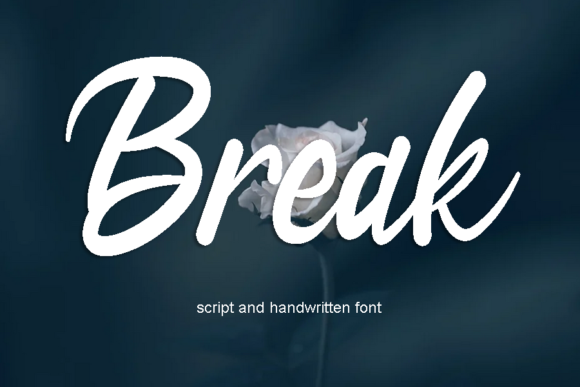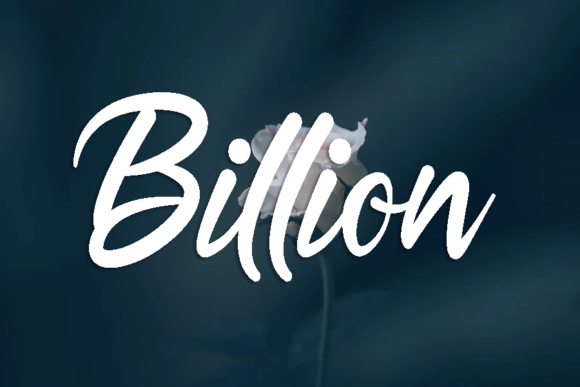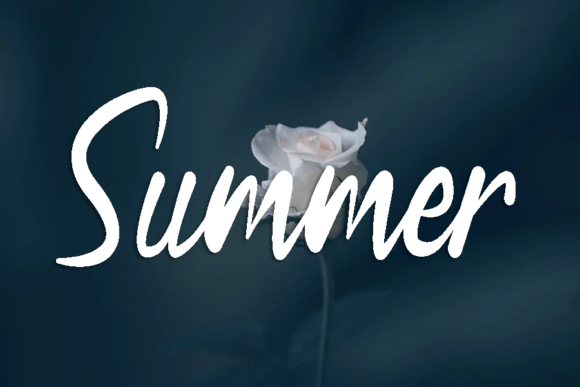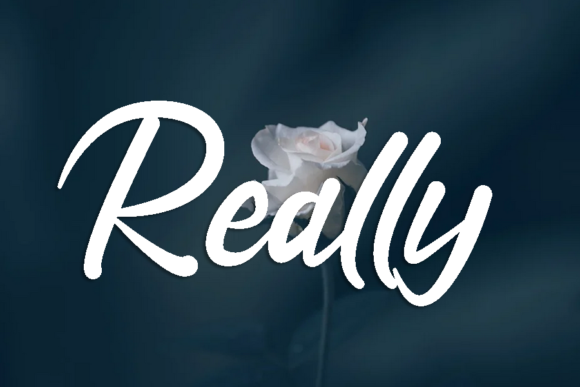
About Break Font
Break is a sophisticated and elegant script font that adds a touch of luxury and charm to a variety of design projects. With its stylish and delicate appearance, Break is well-suited for a wide range of creative endeavors, making it an excellent choice for logos, branding projects, labels, photography, watermarks, and more.
One of Break’s standout features is its versatility. Whether you’re working on a high-end fashion brand, a boutique bakery, a wedding invitation, or a lifestyle blog, this font effortlessly adapts to the style and theme of your project. Its graceful letterforms and flowing strokes add a sense of refinement and sophistication, making it ideal for projects that require a touch of elegance.
When applied to logos and branding, Break makes a strong statement. Its distinctive script style creates a memorable and visually appealing logo that captures the essence of your brand. Whether you’re aiming for a classic, timeless look or a modern and chic aesthetic, Break’s adaptable nature ensures that it complements your brand identity with finesse.
For label and packaging designs, Break adds a touch of luxury and exclusivity. Whether it’s on wine labels, cosmetics packaging, or artisanal products, the font’s elegant curves and intricate details elevate the overall design, leaving a lasting impression on consumers.
Break’s delicate script is also perfect for special events such as weddings, parties, and celebrations. Use it to create stunning invitations, place cards, and event signage that exude romance and sophistication. The font’s graceful lines and swooping flourishes bring a sense of celebration to any occasion.
In the realm of photography and watermarks, Break adds a professional and personalized touch. Its unique script style becomes a signature element, adding an extra layer of elegance to your photographs or digital artwork. By incorporating Break as a watermark, you ensure that your creations are instantly recognizable and protected.
Ultimately, Break is a fashionable and delicate script font that brings an air of refinement and beauty to your design projects. Its versatility and adaptability make it an ideal choice for a wide range of applications, from logos and branding to labels, photography, and special events. With Break as part of your design arsenal, you’ll have a font that effortlessly enhances the visual appeal of your creations and leaves a lasting impression on your audience.